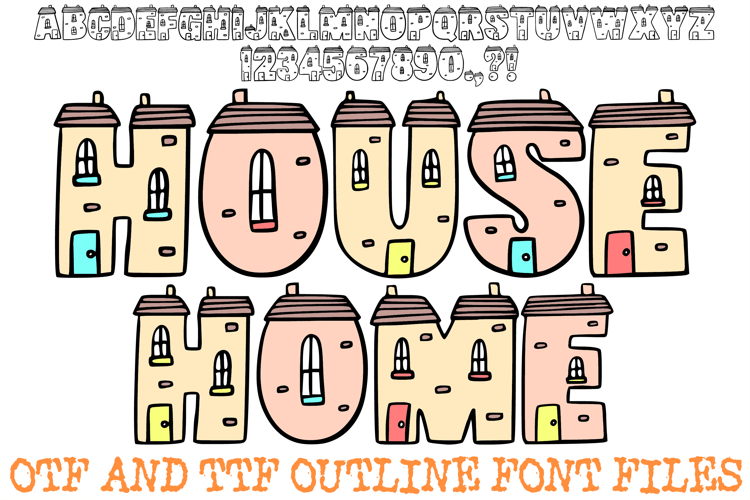
House Home Font Cartoon Brick Building Lettering ABC OTF
The House Home Font is a whimsical, architectural display typeface that transforms every letter into a cozy, hand-drawn dwelling. Featuring charming rooftops, tiny windows, and colorful front doors, this font is the ultimate storytelling tool for real estate branding, children’s book titles, neighborhood event posters, and creative home-decor crafts.
Each character is meticulously designed with a "cottage-core" aesthetic, blending blocky, sturdy silhouettes with delicate illustrative details like chimneys and window panes. Whether you are a realtor looking for a standout logo, a teacher decorating a classroom "neighborhood," or a crafter creating personalized housewarming gifts, the House Home Font delivers a warm, artisan-crafted feel that makes every project feel like home.
Clean Outline Aesthetic: The bold black outlines are perfect for "coloring book" style projects, sublimation, or layering over vibrant pastel colors.
Warm & Approachable: The hand-drawn, slightly irregular lines provide an organic, friendly personality that avoids the stiffness of traditional fonts.